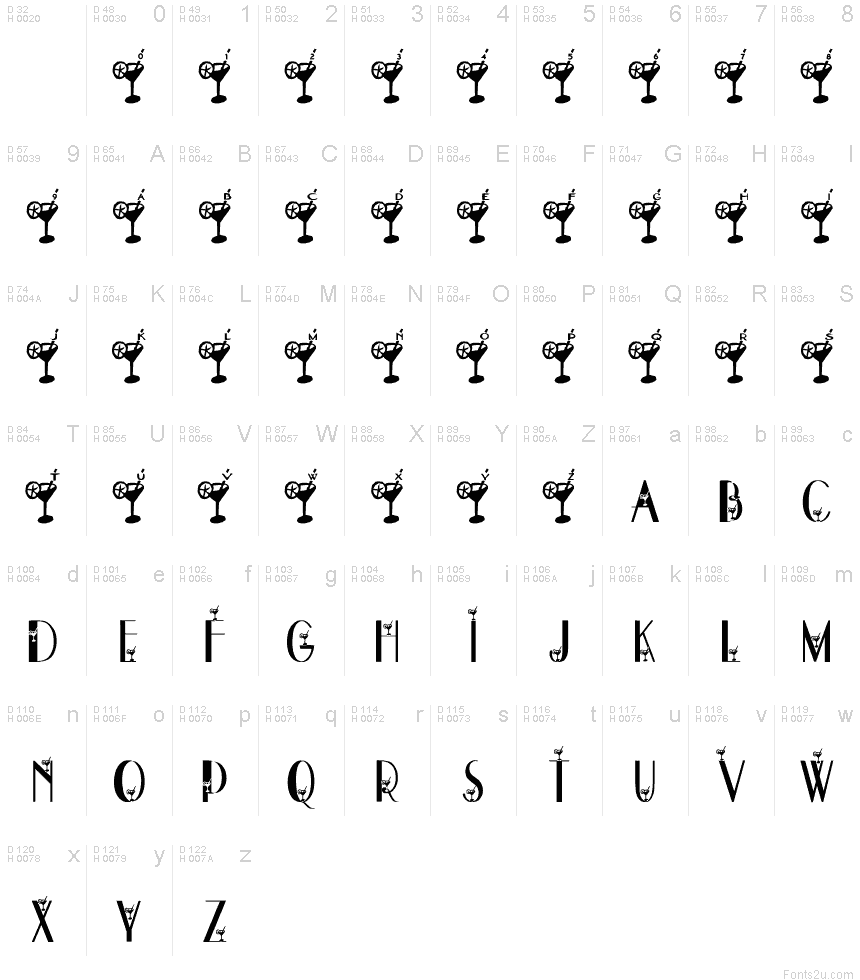
Dry Martini
Dry Martini font by Pearlygates is a free decorative display typeface that pours pure lounge atmosphere into your layouts. Tall, elegant letters are fused with tiny martini glasses, olives, and cocktail picks, creating a playful mix of typography and illustration that feels like a vintage bar sign brought to life. The sharp black silhouettes and clean shapes keep it readable while still feeling indulgent and a bit cheeky.
Using Dry Martini, your titles instantly evoke jazz, dim lights, and clinking glasses-great for bar menus, cocktail posters, speakeasy branding, party invitations, drink recipe cards, and themed social media graphics. This free font shines at large sizes where the glass details can really be seen; pair it with a simple sans serif for body text so the headline does all the talking.